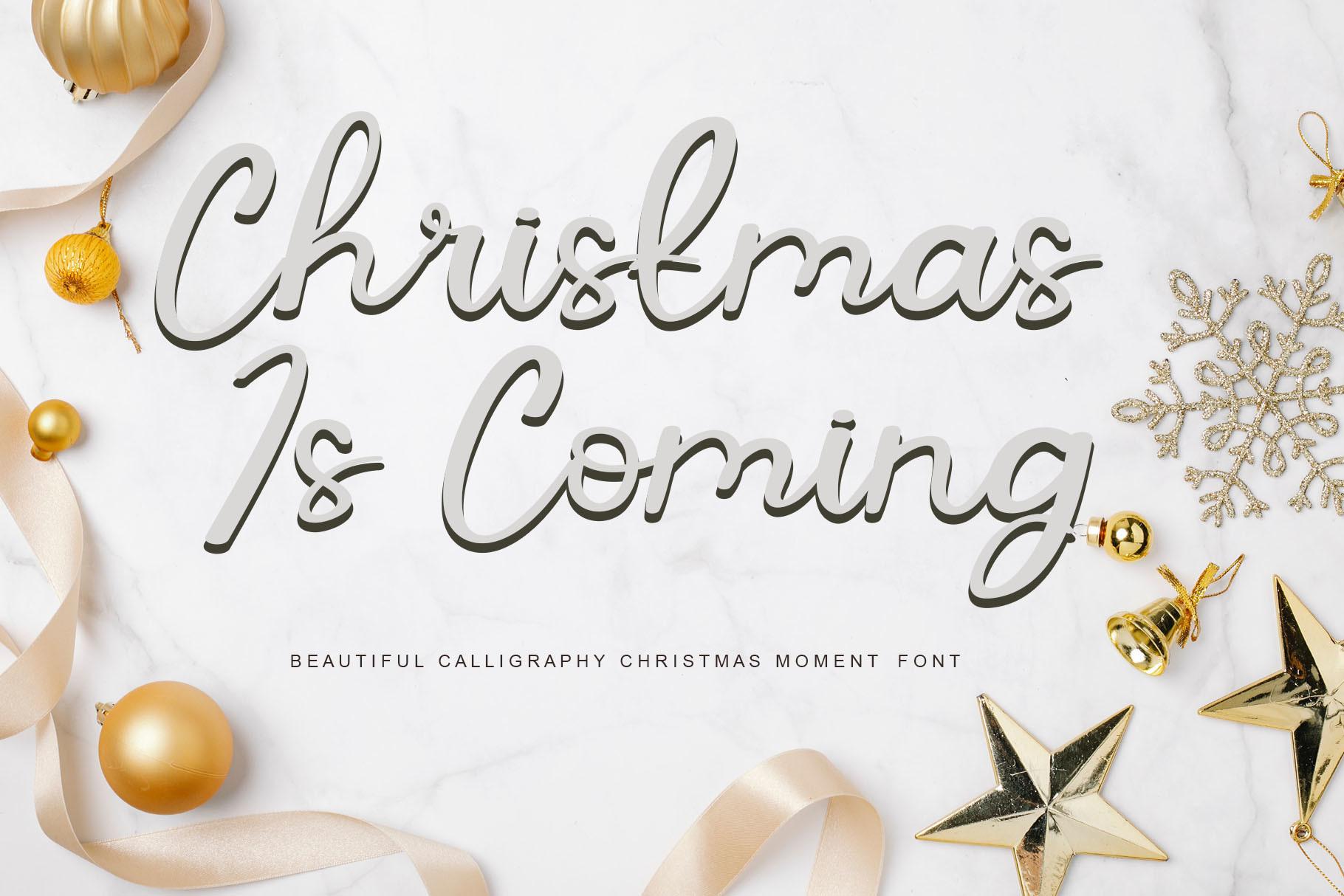
Christmas is Coming Font Description
Christmas Is Coming is an ageless and delicate handwritten font. Its distinct and well designed letters make this font a work of art. Fall in love with its approachable style and use it to create spectacular designs!